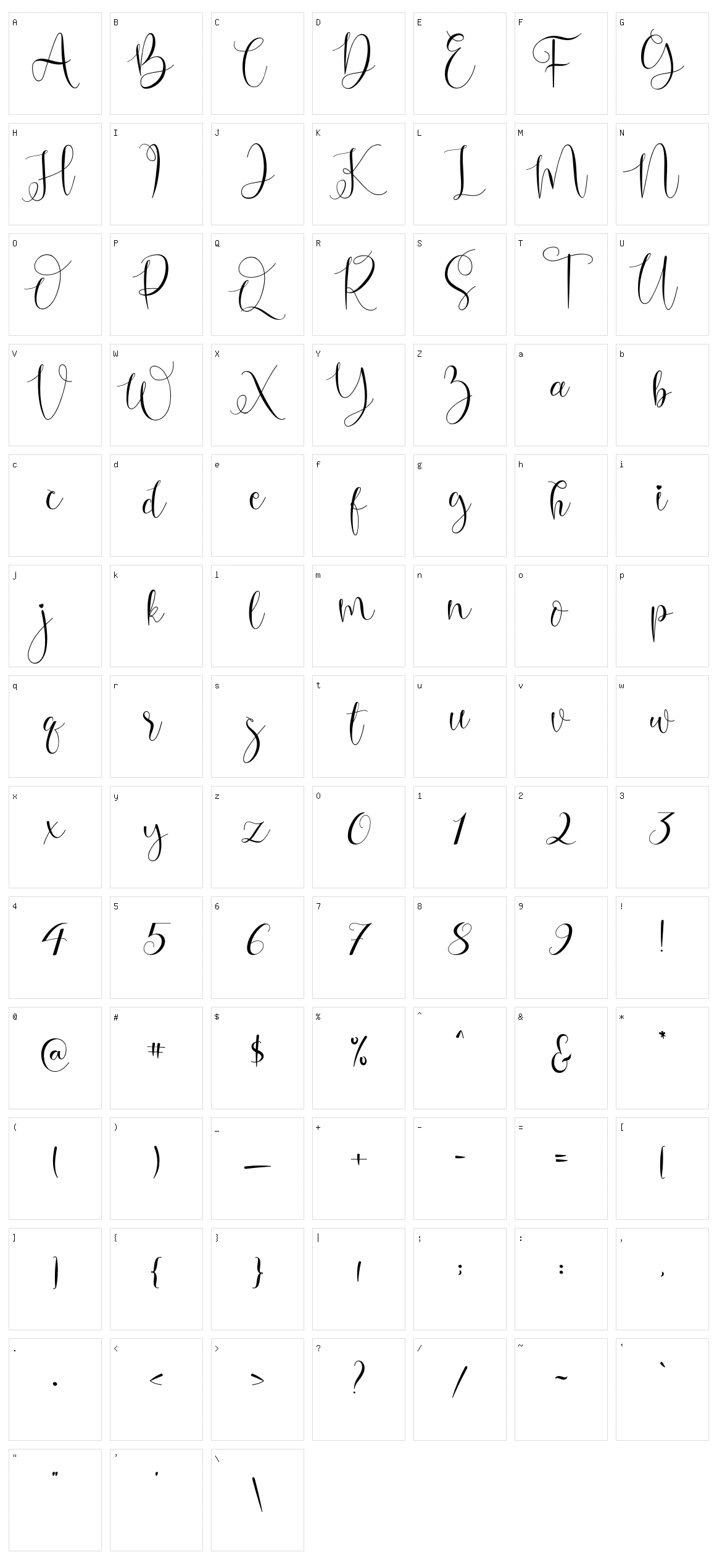
The free font Dear Natasha is carefully designed by Lemon Studio Type, showcasing a thoughtful balance of creativity and usability and falls under the Script font style. When you download the ZIP file, it contains only 141.56 KB of font files, making it lightweight and quick to download. Please review the license details below to understand permitted usage and distribution rights. If license information is not available, we recommend using this font for personal projects only or contacting the author directly for commercial usage permissions.